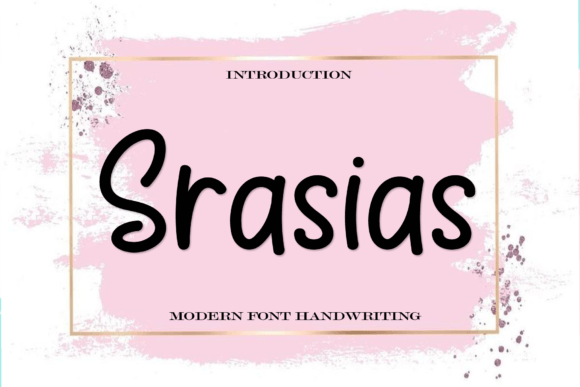
Journey into the world of elegance and sophistication with Srasias Font, the captivating script font family that will transform your designs into masterpieces. As a handcrafted gem from RR Studio, Srasias exudes personality and charm with its unique handwritten style, adding a touch of individuality to your creative endeavors.
Step into a realm of limitless possibilities with Srasias, the perfect font for logotypes, headlines, corporate identities, apparel designs, posters, music, movies, games, magazines, books, comics, cartoons, YouTube videos, Instagram posts, websites, and any other creative project you can envision. Its versatility is truly remarkable, allowing you to bring your ideas to life with effortless grace.
Unleash your creativity with Srasias, a font that speaks to your soul. Its random and freestyle strokes evoke a sense of freedom and spontaneity, inviting you to break the mold and embrace your unique artistic vision. Let Srasias be your muse, guiding you to create designs that resonate with your audience and leave a lasting impression.
With Srasias, you hold the key to unlocking your creative potential. Its meticulously crafted characters dance across the page, captivating your audience with their charm and elegance. Experience the joy of effortless design as Srasias effortlessly complements your ideas, elevating them to new heights of beauty and sophistication.
Don't settle for ordinary fonts that blend into the background. Embrace the allure of Srasias, a font that commands attention and sets you apart from the rest. Let your designs shine with brilliance, capturing the hearts and minds of your audience. Srasias is more than just a font; it's a statement of individuality, a reflection of your impeccable taste, and an invitation to embark on a creative journey like no other.